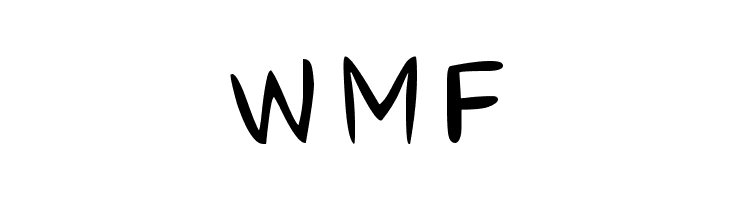
hollograph Font
- Font: hollograph
( Fonts by Miguel Rios - miguelrios.com.mx )
A playful, handwritten font with bold, rounded strokes and a casual, dynamic style.